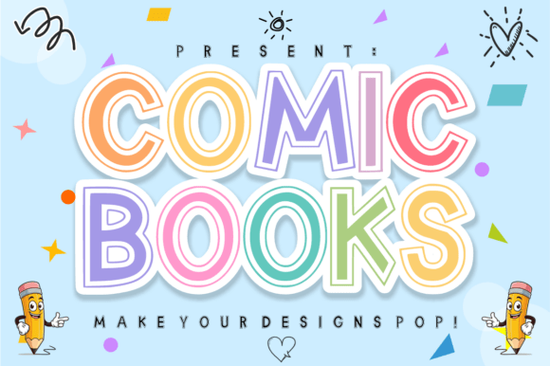
If you're working on a kids' party invite, a playful product label, or vibrant classroom materials, the right font can make all the difference. That’s where Comic Books Font comes in a lively display typeface built for projects that need a burst of energy without sacrificing readability. With its bold, double-outline design and hollow inline detail, it echoes classic comic book lettering while feeling fresh and modern.
What sets Comic Books apart is how well it layers. Because of its unique structure, you can easily assign different colors to the outer stroke and inner fill perfect for creating eye-catching stickers, t-shirt graphics, or social media banners that stand out in a crowded feed. Whether you’re a print-on-demand seller designing merch for children’s brands or a teacher making engaging handouts, this font delivers both personality and practicality.
Why choose a playful display font like Comic Books?
Display fonts aren’t meant for body text they’re visual accents. But when used thoughtfully, they add instant character to headlines, logos, packaging, and promotional materials. For kid-focused projects especially, a font like Comic Books signals fun, imagination, and approachability. Its clean lines prevent it from looking chaotic, even at larger sizes, which helps maintain professionalism in small business branding.
Compared to other playful options, Comic Books strikes a balance: it’s energetic but not messy, whimsical but still legible. If you’ve tried fonts like Happy Brush for a hand-painted look or Doodle Line for sketch-style charm, you’ll appreciate how Comic Books offers a more structured alternative with similar joyfulness.
How to use Comic Books Font effectively
Because of its outlined construction, this font shines when you take advantage of color layering. Here’s how:
- Use two contrasting colors one for the outer edge, another for the inner fill to create depth.
- Avoid tiny sizes. The double outline needs room to breathe; aim for 36pt or larger for best results.
- Pair it wisely. Combine with a simple sans-serif (like Montserrat or Open Sans) for supporting text so your message stays clear.
- Test print output. If you’re using it for physical products, check how the outlines render on different materials especially on dark backgrounds.
If you enjoy layered effects, you might also like Real Wavy Stacked, which offers a dimensional bounce, or Simple Stacked for cleaner shadow-style depth. And for something with rainbow flair, Rainbow Memories brings multicolor joy in a single glyph set.
Who is this font best for?
Print-on-demand creators will love how Comic Books grabs attention on mugs, onesies, and posters without looking dated. Small businesses targeting families think toy shops, kids’ cafes, or birthday planners can use it to build friendly, memorable visuals. Teachers and homeschoolers can design custom flashcards, reward charts, or bulletin board headers that feel inviting. Even digital crafters making SVG files for Cricut or Silhouette projects will find it easy to cut and layer thanks to its open paths and consistent stroke width.
Before committing to any display font, ask yourself: Does this match my audience’s expectations? A preschool brand might embrace Comic Books wholeheartedly, but a law firm probably shouldn’t. Keep your project’s tone in mind and remember, less is often more. One bold headline in Comic Books can carry a whole design; you don’t need to use it everywhere.
Quick checklist before using Comic Books Font:
- ✅ Confirm your project targets kids, families, or playful themes
- ✅ Plan your color scheme to highlight the double-outline feature
- ✅ Pair with a neutral, readable font for body copy
- ✅ Test at actual size on screen and in print if applicable